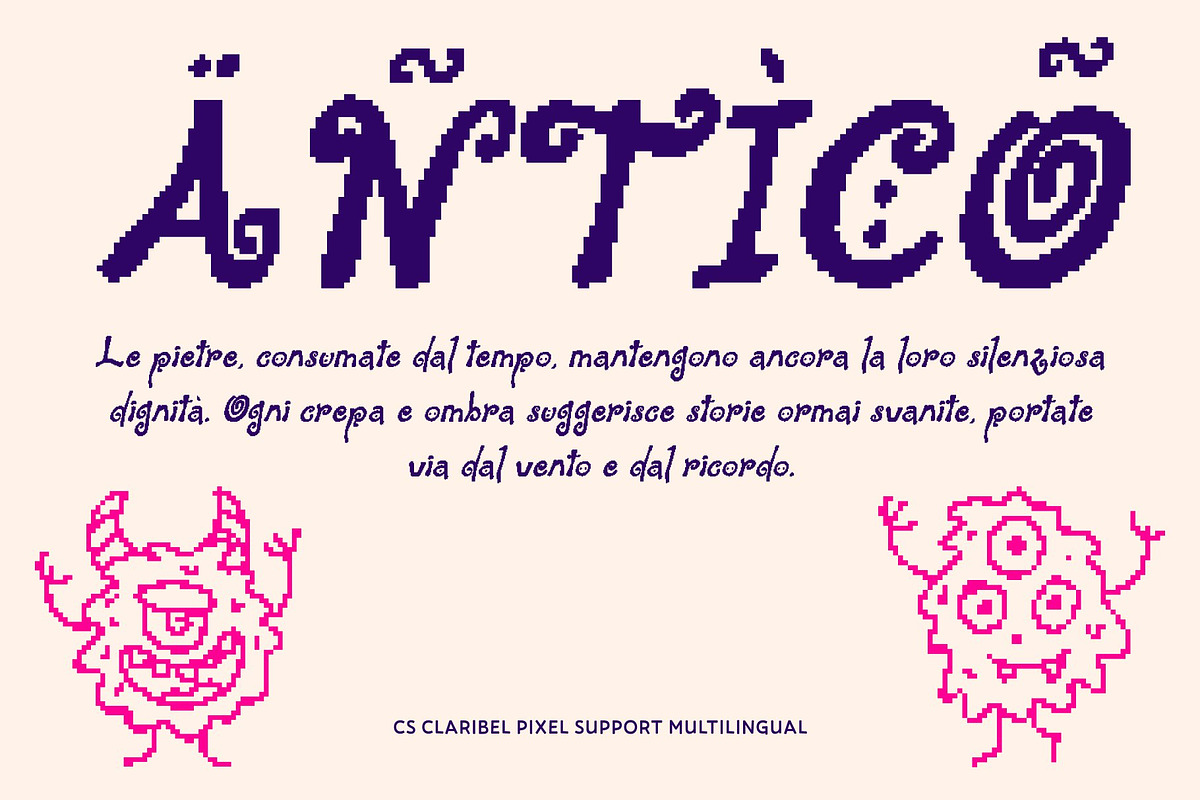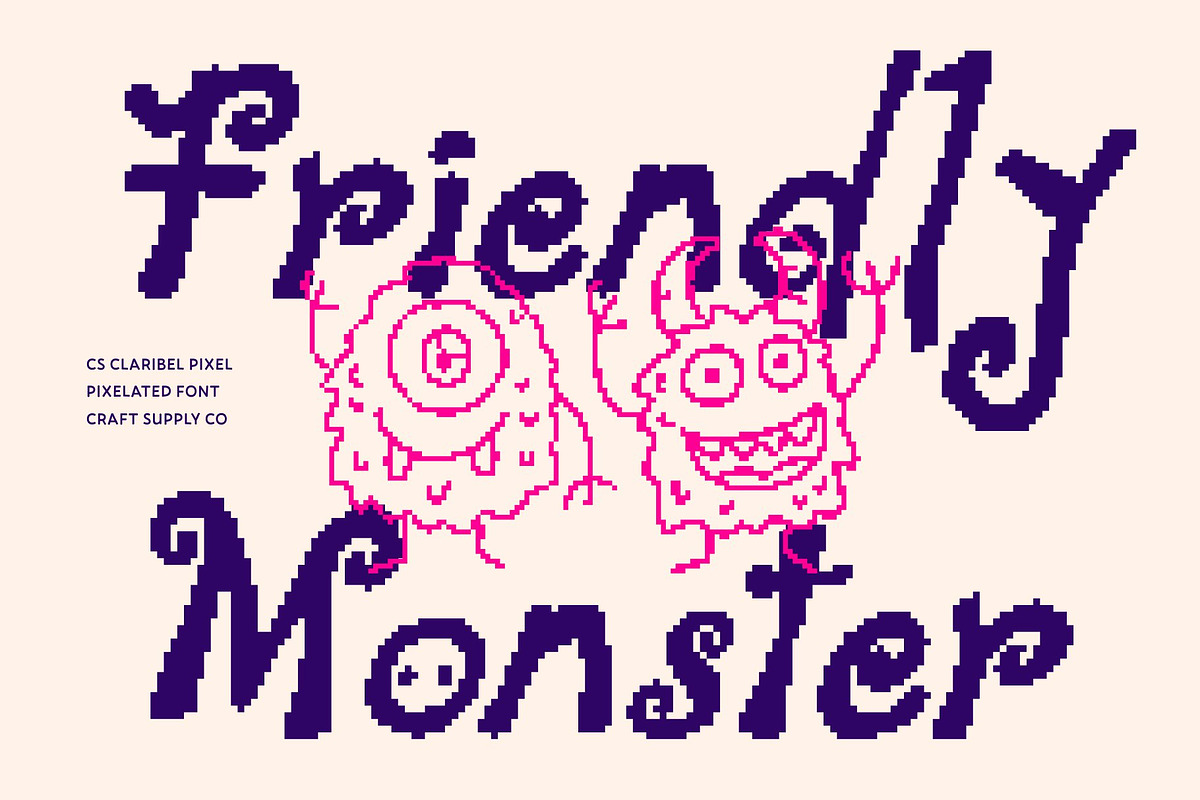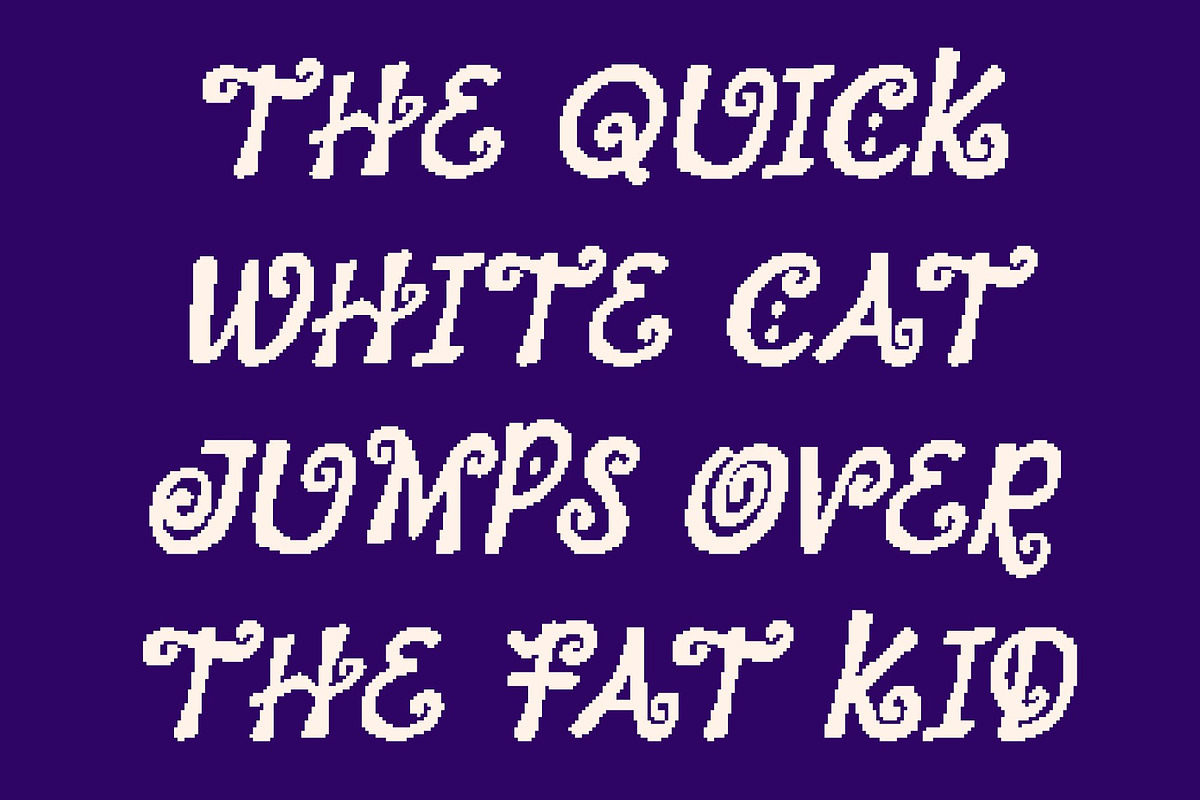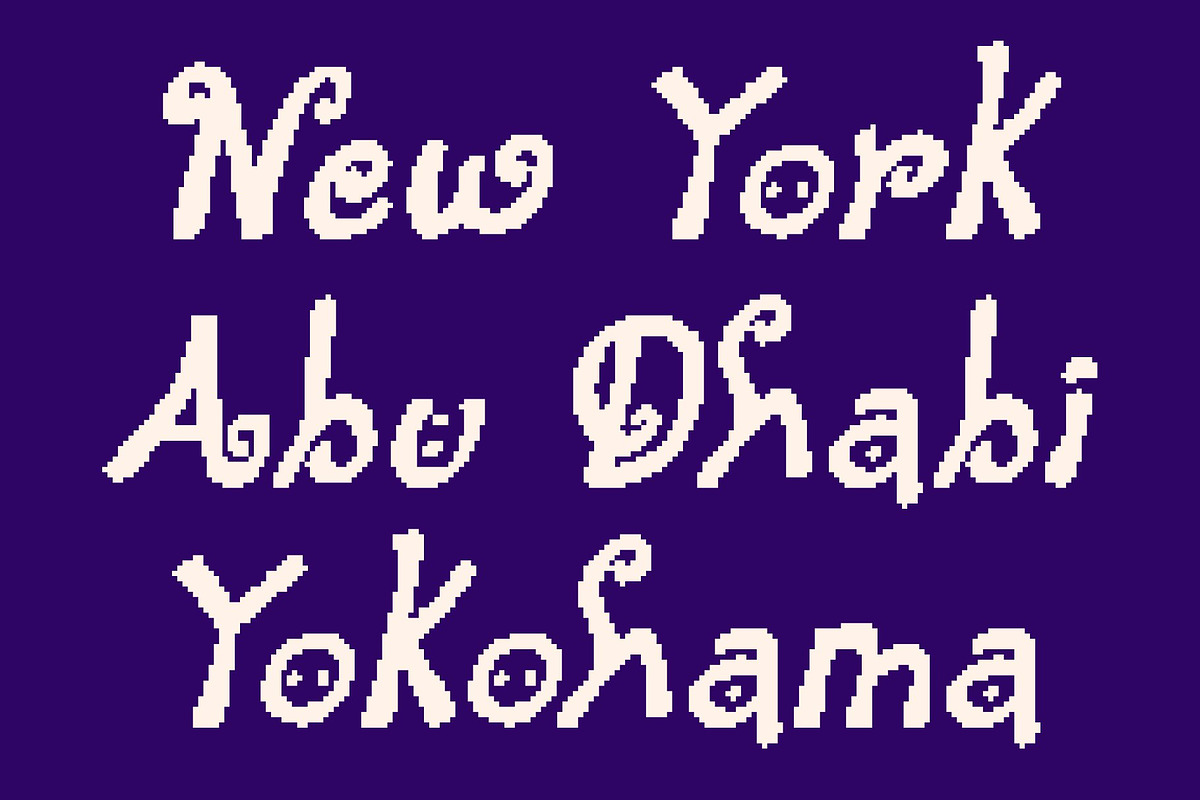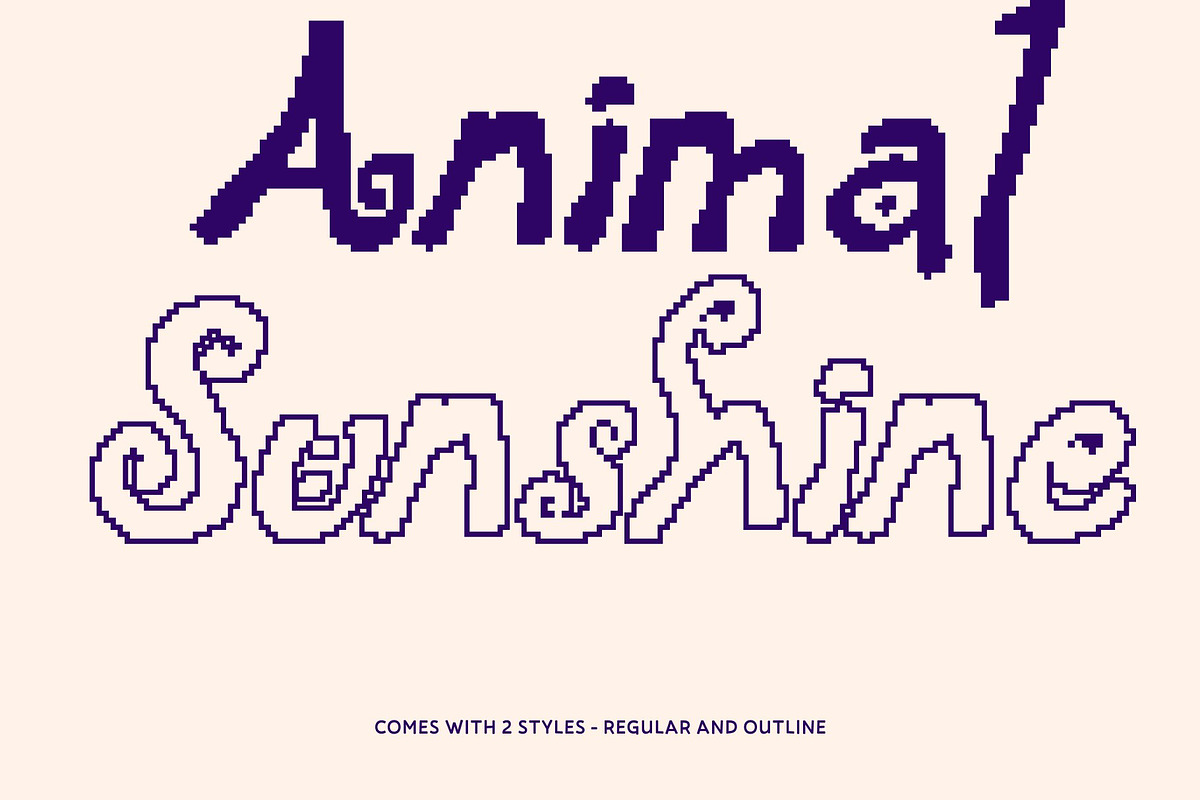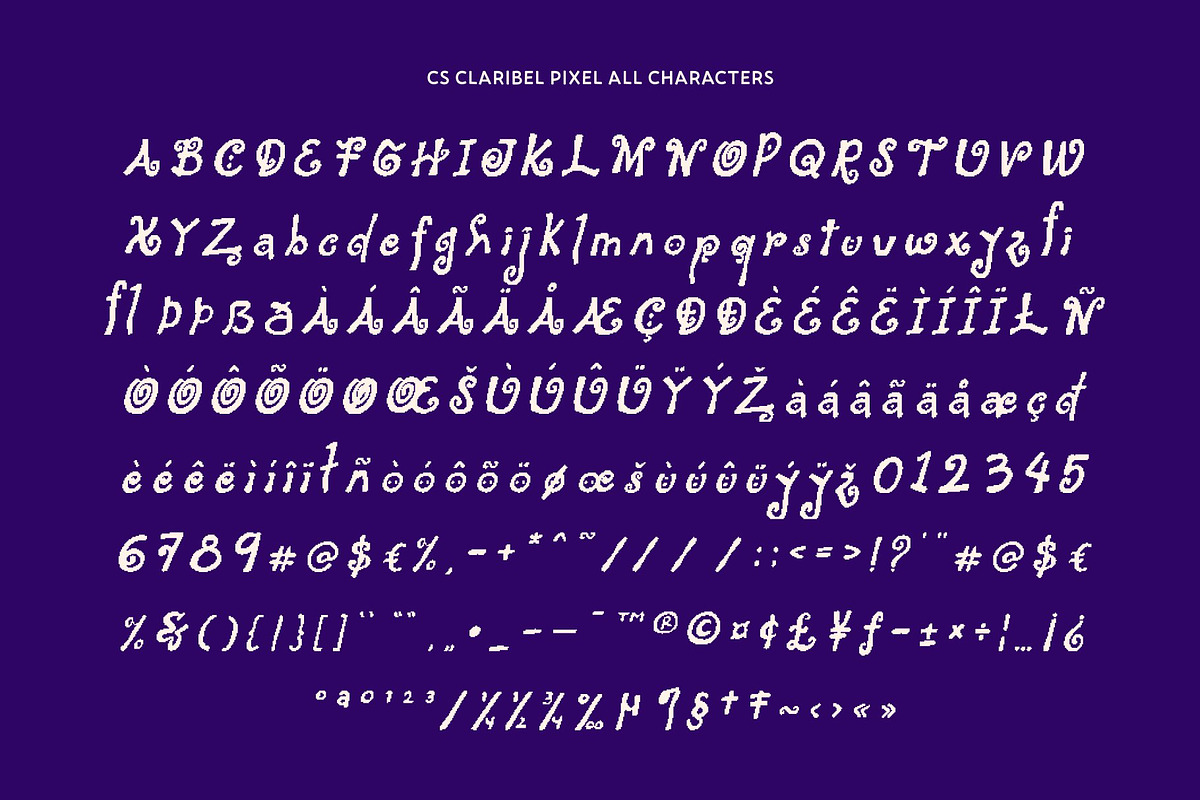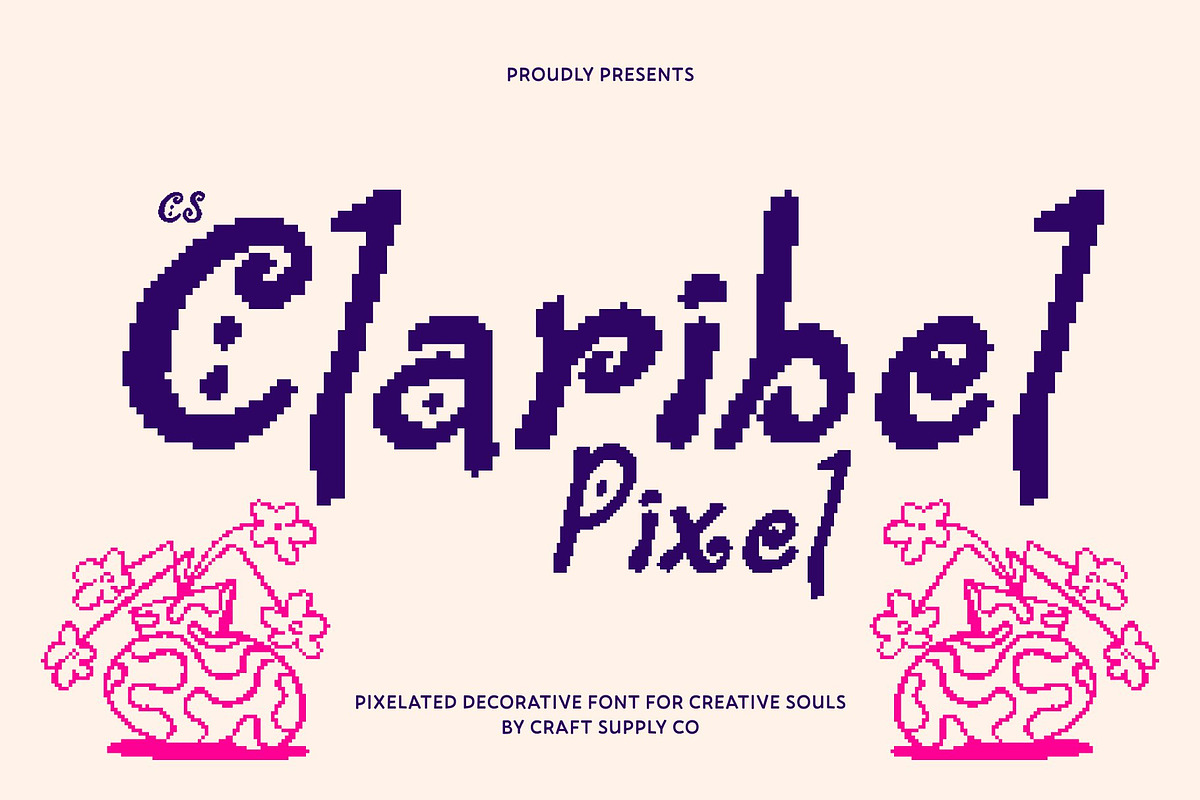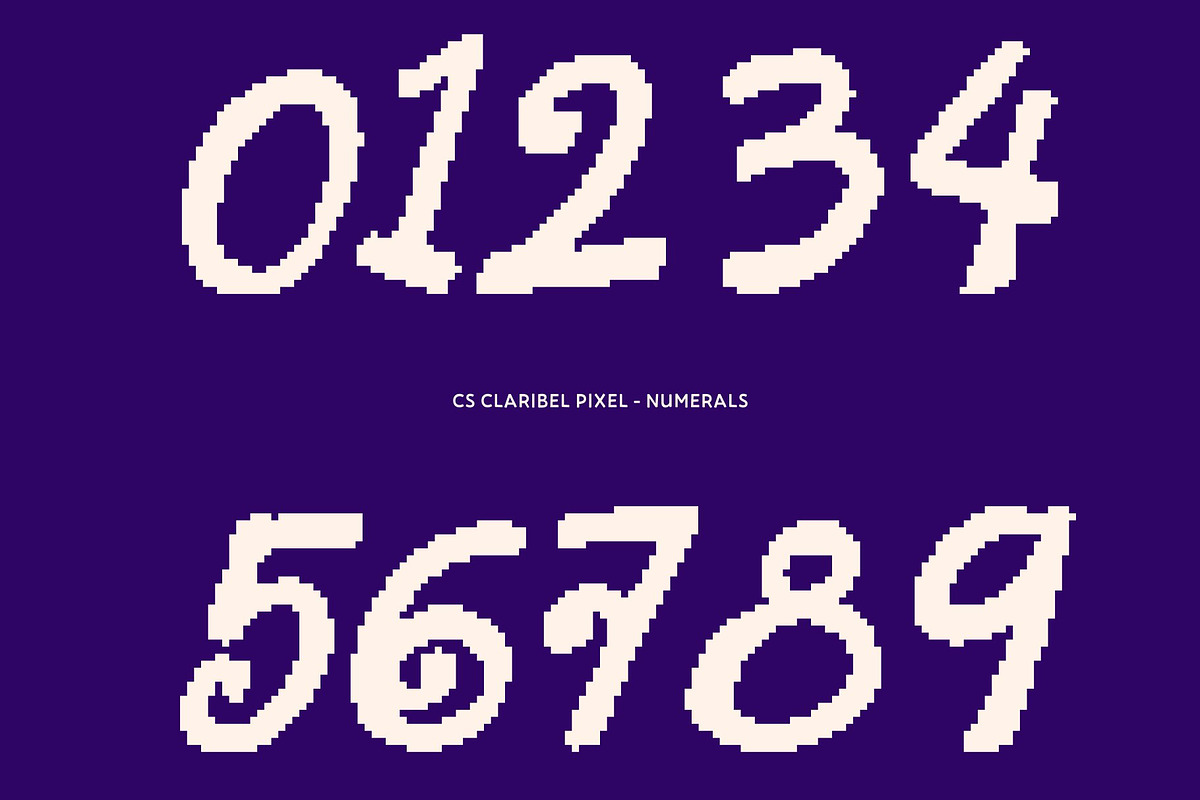
CS Claribel Pixel
CS Claribel Pixel – Whimsical Fantasy with a Digital Storybook Touch
Decorative Pixel Display Font with Artistic Handwritten Style This is an artistic decorative display font that blends fantasy-inspired beauty with a refined pixel-based structure. Its fluid handwritten style and whimsical character feel expressive and enchanting, while subtle pixel precision adds a modern digital charm. Every curve and stroke is crafted to spark imagination and creative storytelling.
Whimsical Pixel Forms with a Touch of Fantasy Combining the warmth of handwritten artistry with delicate pixel detailing, this font creates a magical visual rhythm that feels alive and graceful. Its playful curves and flowing lines are balanced by digital structure, resulting in a storybook-like aesthetic with a contemporary twist perfect for designs that feel imaginative yet modern.
Perfect for Invitations, Branding, and Elegant Digital Displays This font shines in expressive and elegant settings such as wedding invitations, boutique branding, fantasy-themed visuals, and special event posters. The decorative strokes and fantasy-inspired style are enhanced by pixel clarity, transforming text into an artistic focal point that feels personal, poetic, and visually captivating.
Expressive, Elegant, and Imaginatively Digital More than just a typeface, this font is a celebration of creativity and emotion. Designed for storytellers and dreamers, it brings a whimsical, fantasy-like atmosphere with a subtle digital edge making every design feel enchanting, memorable, and uniquely crafted.